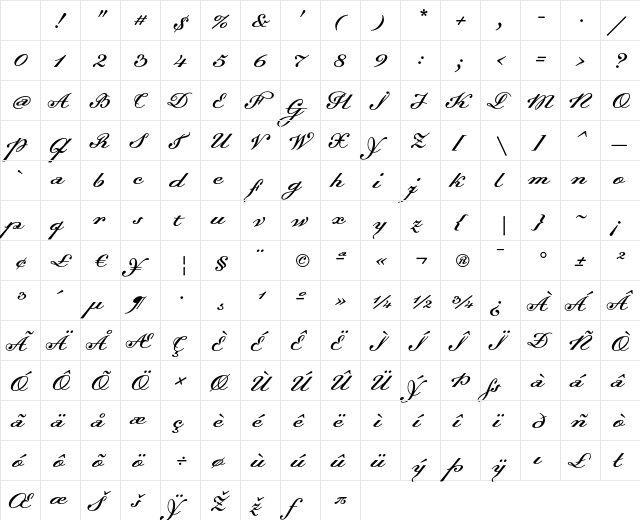
Complete Dalliance Medium Italic glyph index. Displaying only characters natively supported by Dalliance Medium Italic font.
Dalliance is a composed and adaptable typeface that performs quietly and consistently across a wide range of design contexts. The slanted form adds forward momentum and visual energy.
Pro Tip: Use Dalliance for emphasis, pull quotes, and subheadings where its slanted energy can add rhythm to the layout.